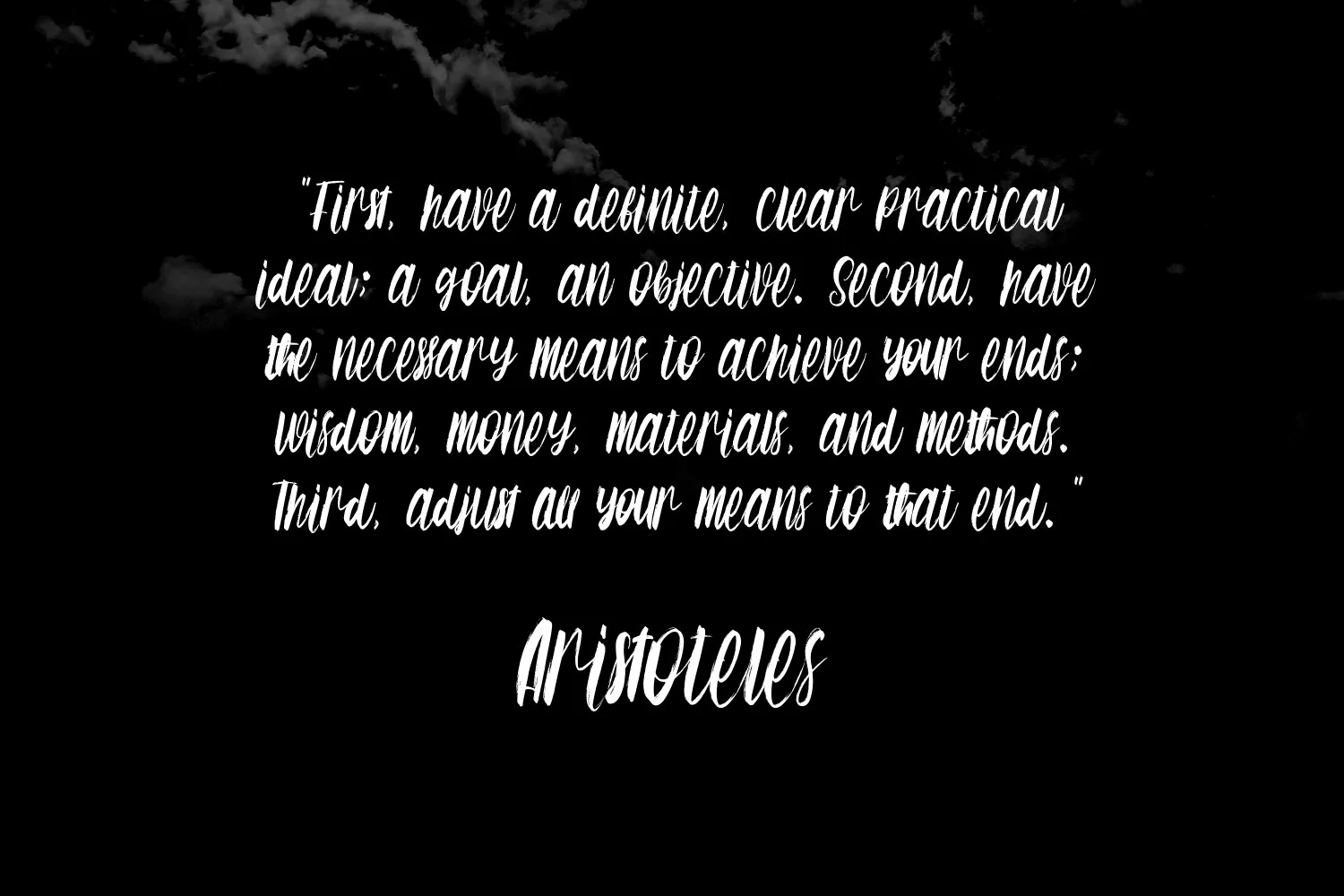
Switch Sister is a Brush Script font. With rough brush stroke, slant and fun character with a bit of ligatures. To give you an extra creative work. Switch Sister font support multilingual more than 100+ language. This font is good for logo design, Social media, Movie Titles, Books Titles, a short text even a long text letter and good for your secondary text font with sans or serif. Make a stunning work with Switch Sister font.